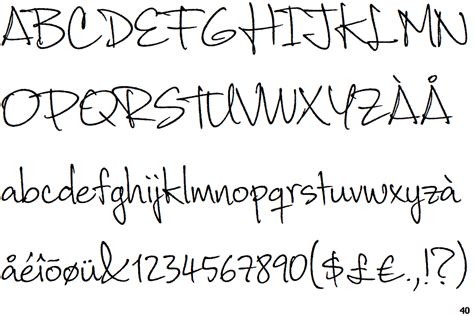
Font Similar To Corradine Handwriting / Similar Fonts To Poem Script | Fontspring / Licensed for personal and commercial use.. Handwriting fonts are written with a pen, pencil, or marker. Below you can download free carradine font. Looking for fonts similar to trajan for a design project? Downloadable and web fonts are both supported, with a download link for each. Browse and download handwriting fonts and generate images from custom text with handwriting fonts.
Find fonts similar to corradine handwriting, font by corradine fonts. Upload your fonts to cufonfonts.com and archive them for use by all users around the world. This font uploaded 11 january 2013. Looking for fonts similar to trajan for a design project? Downloadable and web fonts are both supported, with a download link for each.
Download 10,000 fonts with one click for $19.95. Ready to personalize and share in facebook and twitter. Browse and download handwriting fonts and generate images from custom text with handwriting fonts. What fonts are similar to corradine handwriting rough? Can make it easier to convey the message in your design and create. If you want to make a personal blog or website stand out from all the rest, you can incorporate a fun handwriting font into the headers: Download the best free handwritten fonts, that are hand picked collections by our editorial experts and can be used on mac, pc, website. You can download it for free and without registration here.
Looking for fonts similar to trajan for a design project? There's also a specimen option that allows you see the font in identifont works along similar lines, allowing you to enter the name of the font to get a list of possible alternatives. How to draw sweet font curves (spanish). Below you can download free carradine font. Downloadable and web fonts are both supported, with a download link for each. Ready to personalize and share in facebook and twitter. Upload your fonts to cufonfonts.com and archive them for use by all users around the world. The david carradine font contains 67 beautifully designed characters. What fonts are similar to corradine handwriting rough? This is the page of carradine font. If you want to make a personal blog or website stand out from all the rest, you can incorporate a fun handwriting font into the headers: It grabs attention, and helps identify your brand. Thousands of designers (famous or not) use the image font detection system to find a font or similar free fonts from an image.